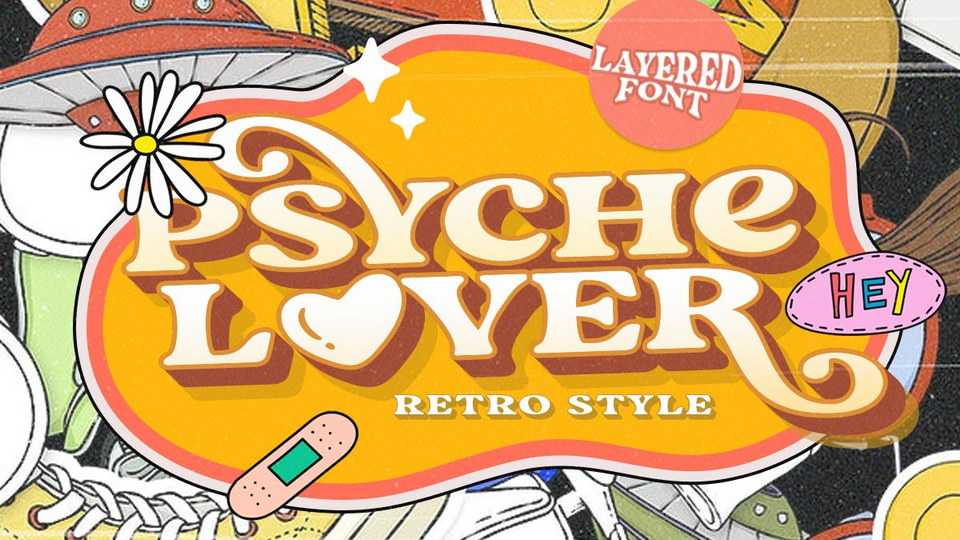
Download Psyche Lover font, a groovy vintage serif typeface. With its bold and playful look Psyche Lover font is perfect to create a unique retro branding and psychedelic designs.